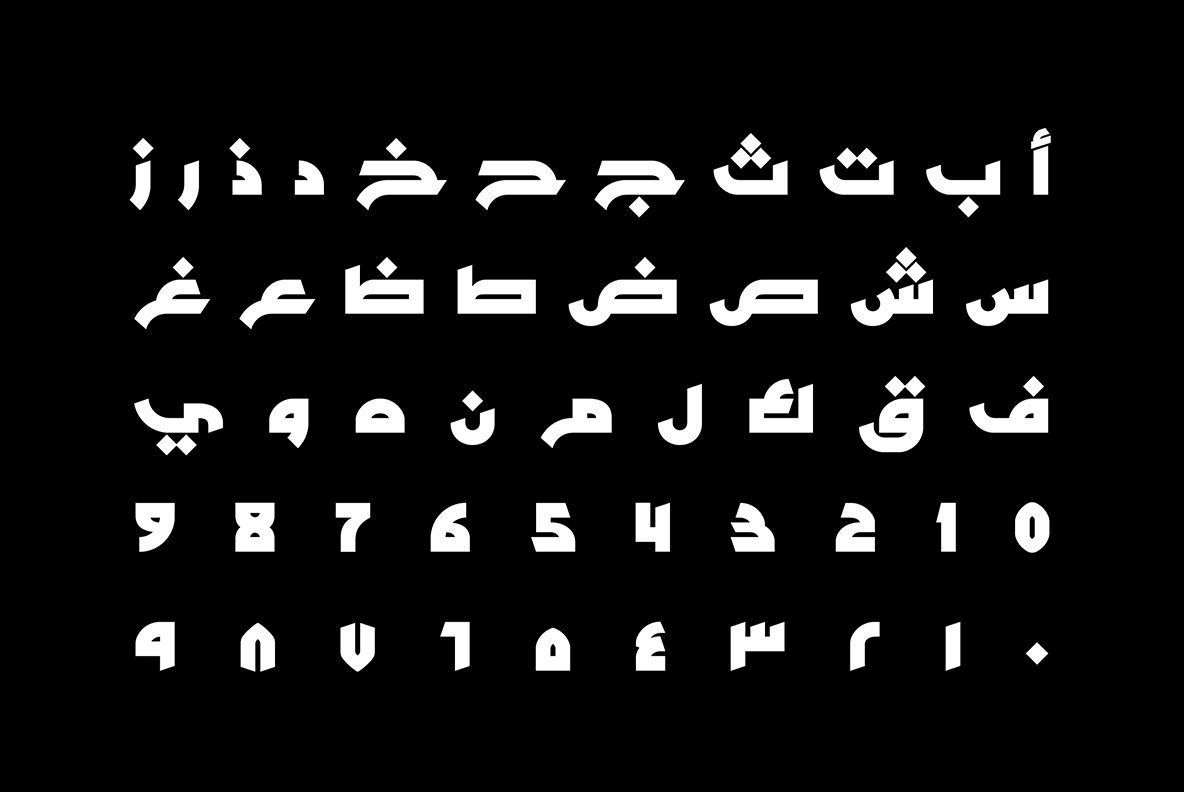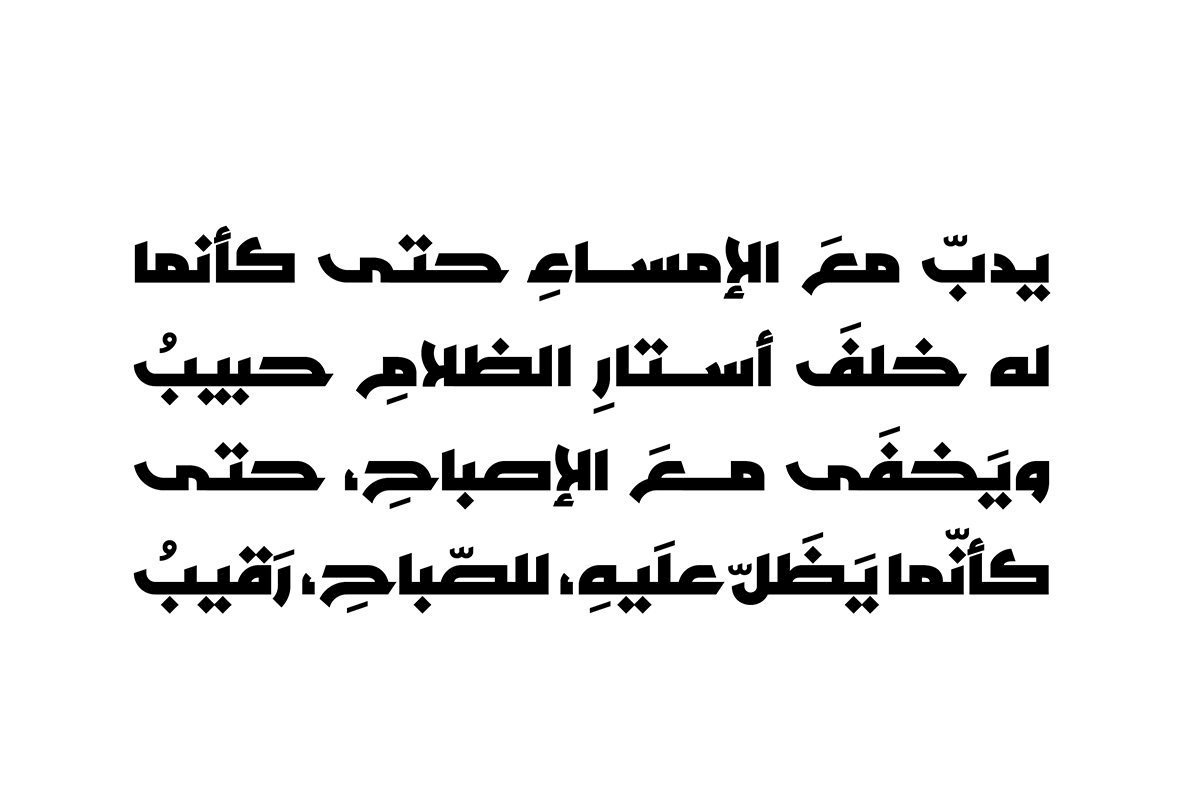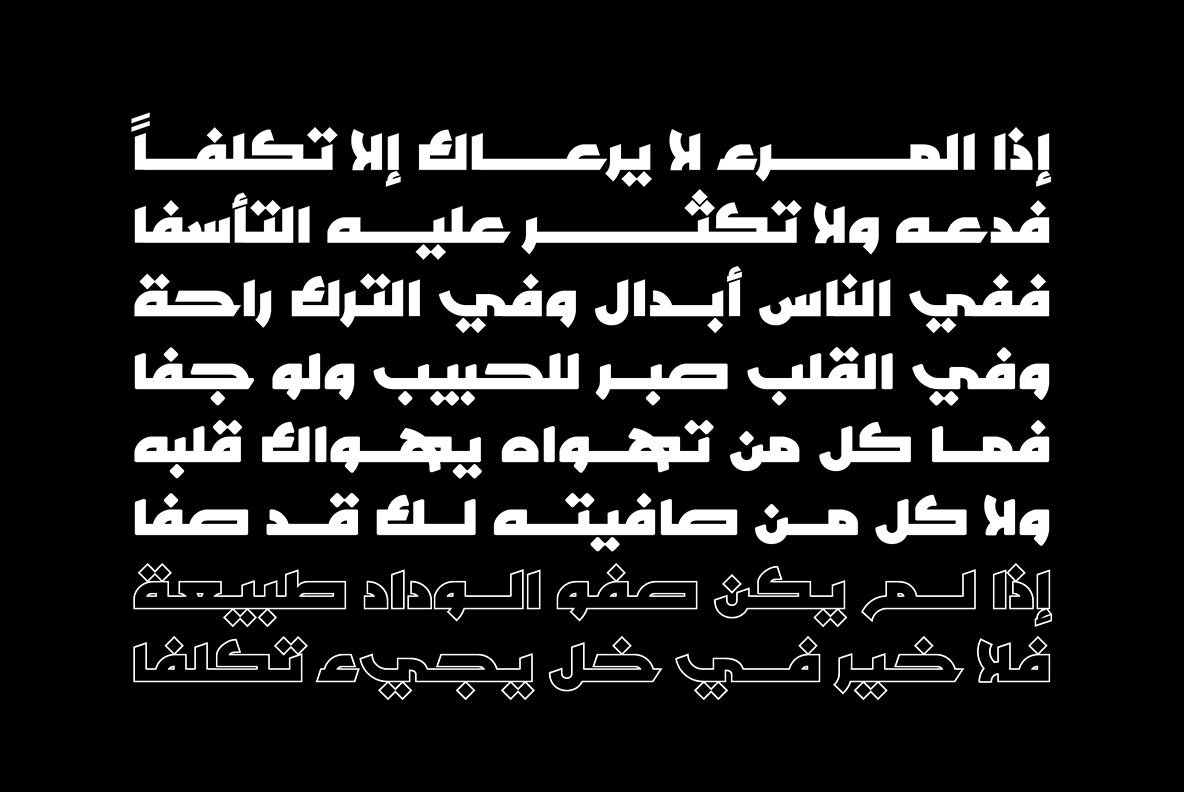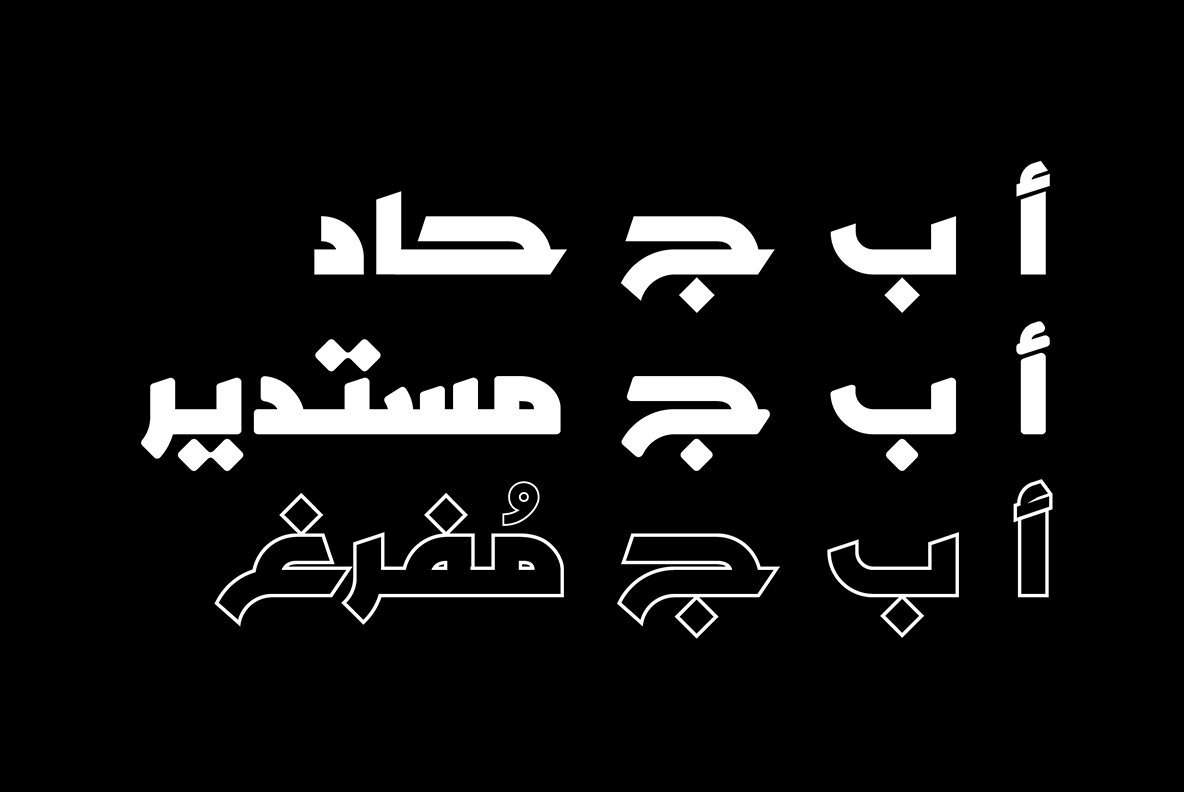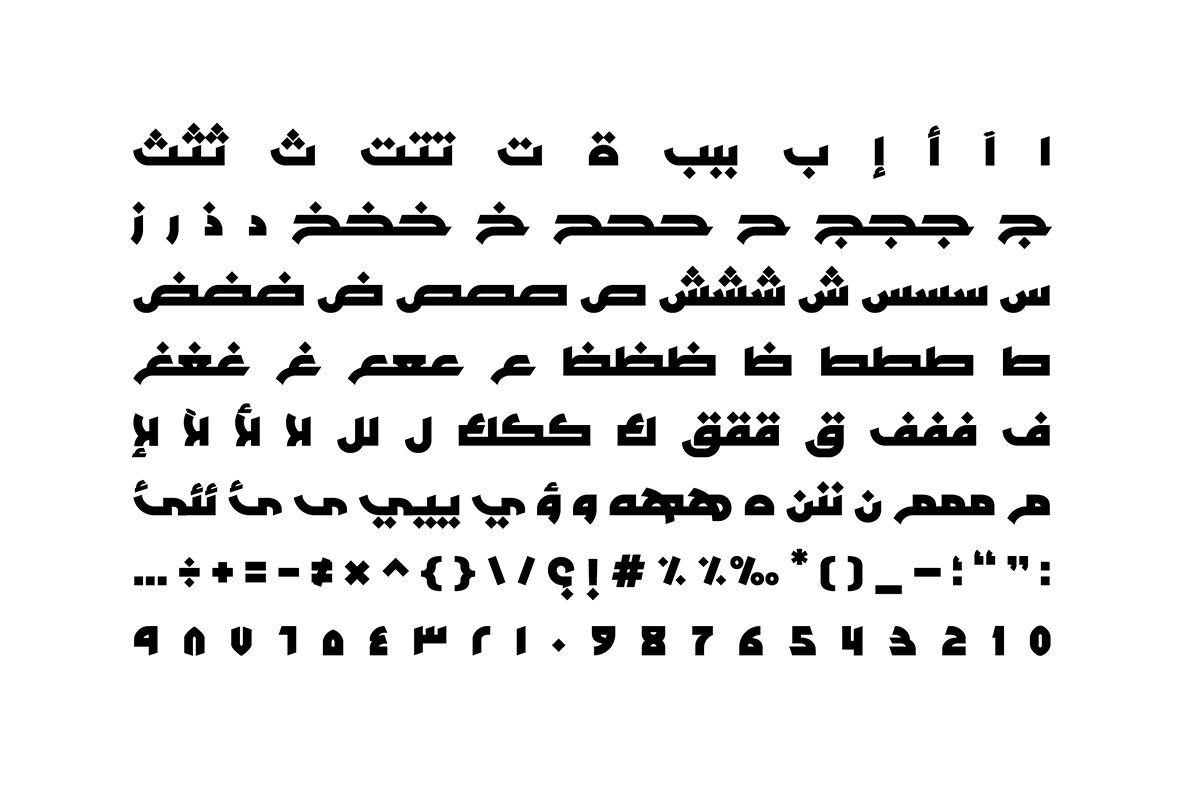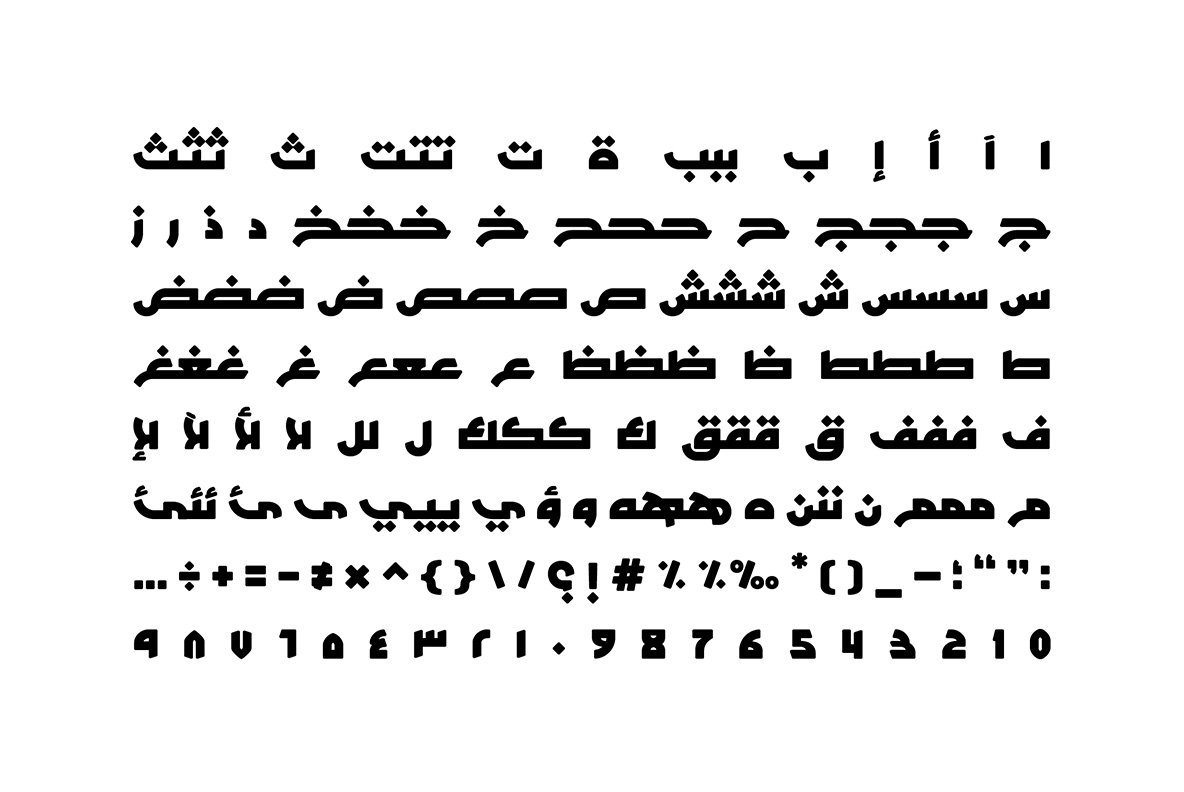
Tarhaal Font
Tarhaal is an Arabic display font that features a unique style due to its solid geometric structure and its heavy letterforms. The font consists of three styles namely; Sharp, Rounded and Outlined and it suits all kinds of creative heading.